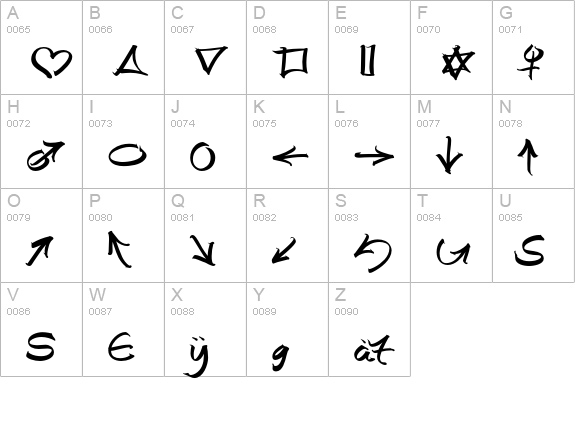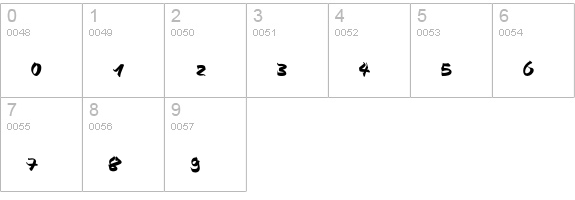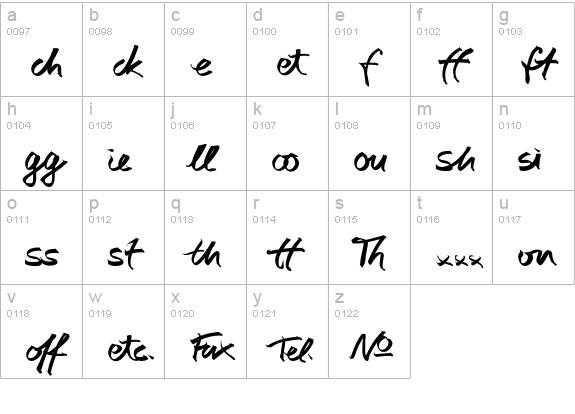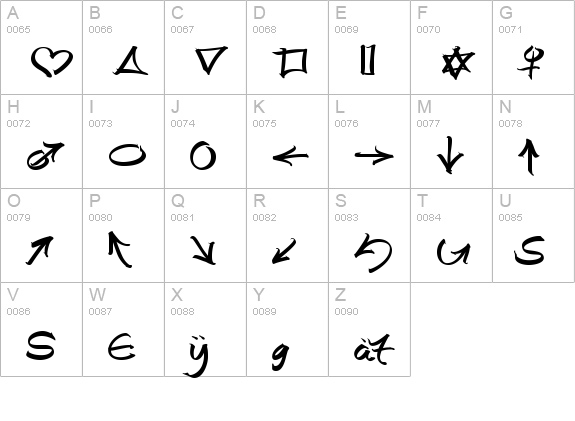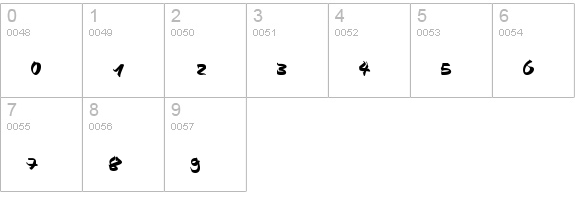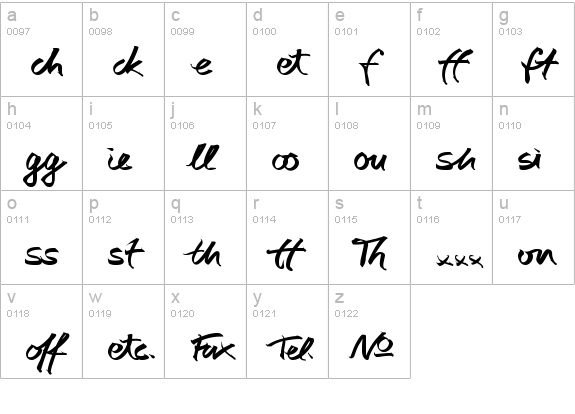
AutographScriptEF-BoldExtras font is a bold and eye-catching typeface that exudes elegance and sophistication. With its extra flair and unique design elements, this font is perfect for making a statement in any project. Whether you're creating invitations, posters, or branding materials, AutographScriptEF-BoldExtras font will add a touch of luxury and style. Best of all, this font is available for free download at FontsMarket.com. You can easily access and use AutographScriptEF-BoldExtras for your personal and commercial projects without any cost. So why wait? Elevate your designs with this stunning and freely accessible font today!